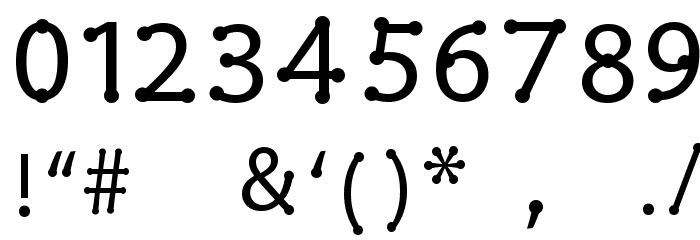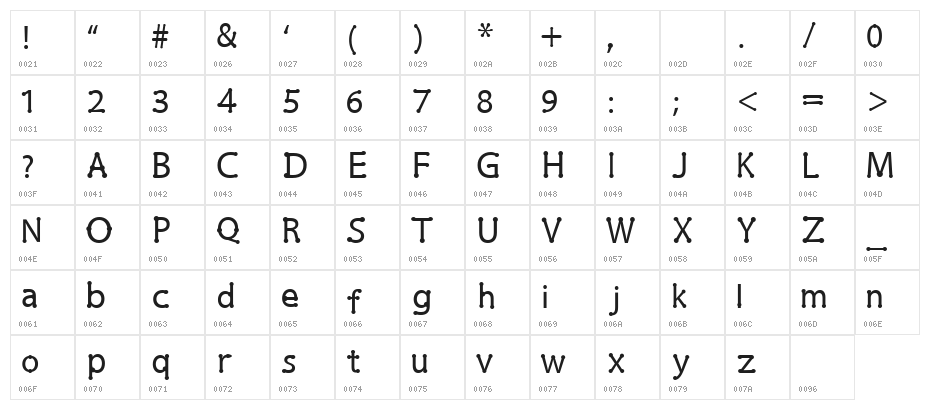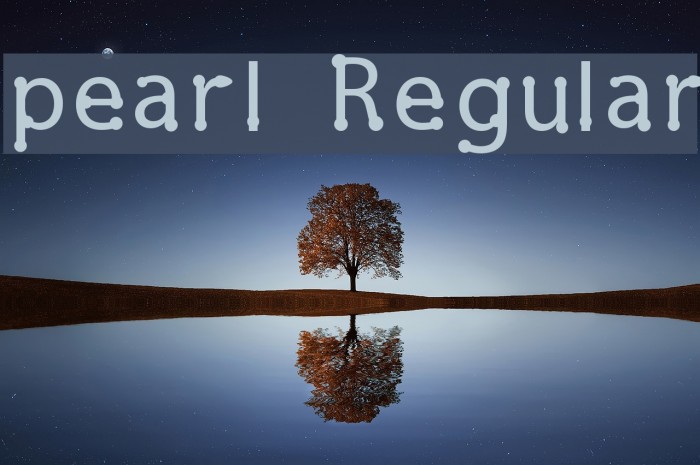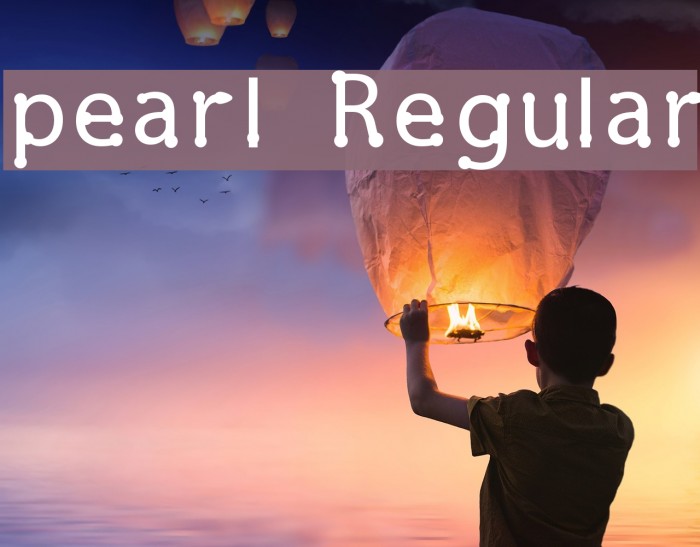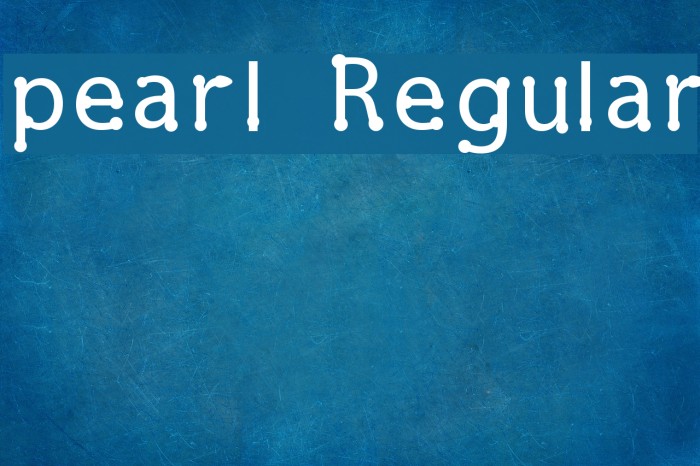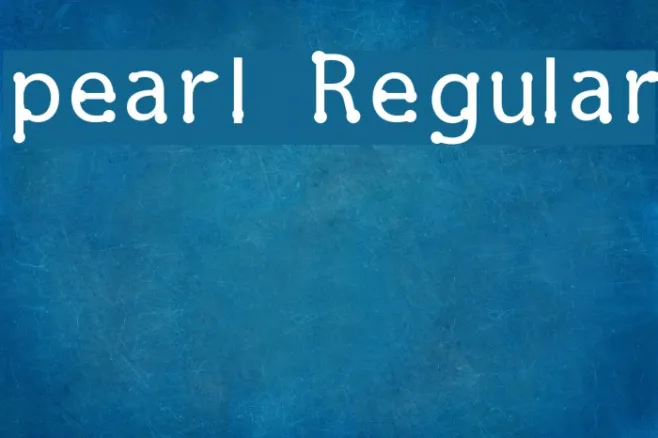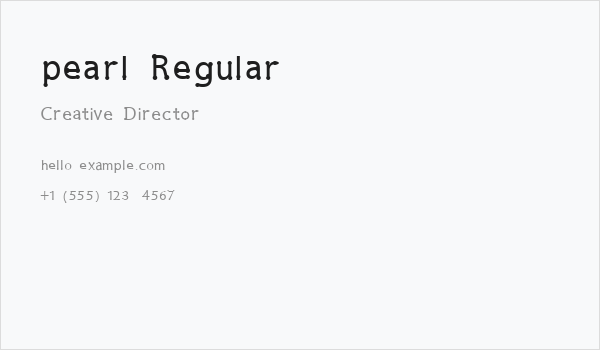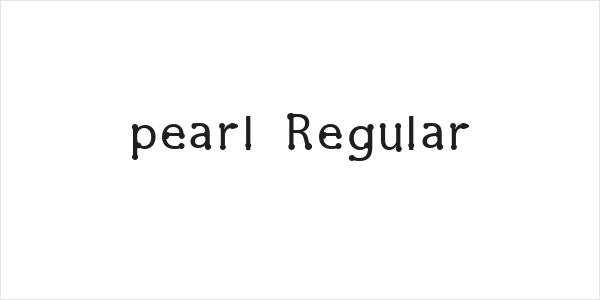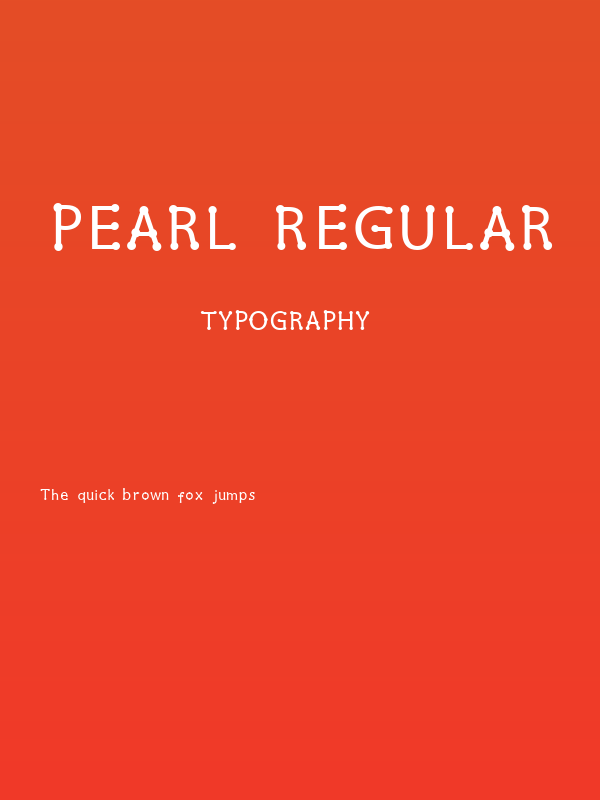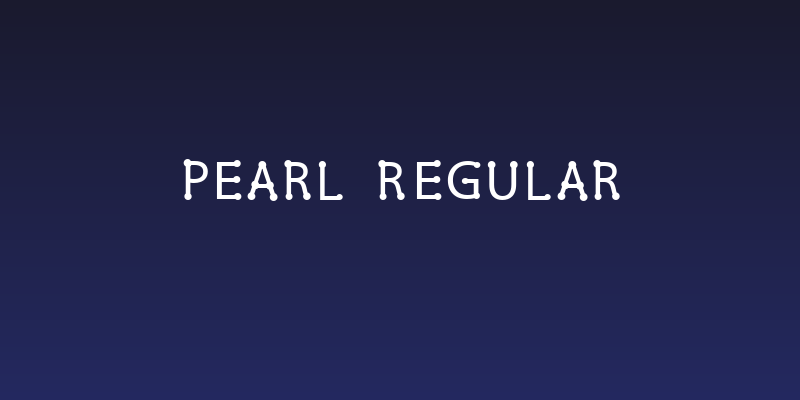
pearl Regular Font
pearl Regular Description
This font features a playful and unique design with rounded terminals and a slightly whimsical appearance. The characters are well-balanced, with a consistent stroke width that gives it a clean and modern look. The rounded ends of the strokes add a friendly and approachable feel, making it suitable for a variety of creative projects. The numerals and special characters maintain the same playful style, ensuring consistency across all text elements. This font is versatile, offering a fresh take on traditional letterforms while maintaining readability.
| Proposed Projects | Ideal for children's books, playful branding, creative posters, and modern web design. |